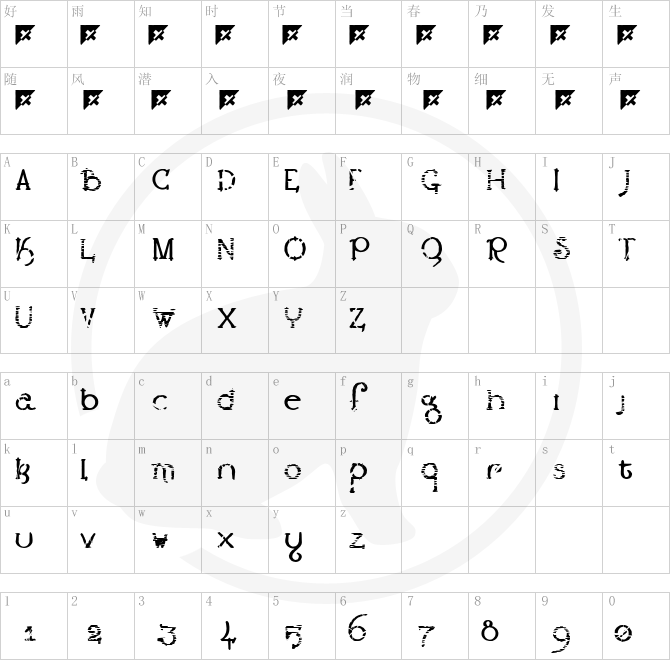
- Font Name:!Lestatic CSS
!LestaticCSS.ttf is a very beautiful artistic font, !LestaticCSS.ttf is widely used in the design and printing of various books and pictures,!LestaticCSS.ttf has a strong visual impact,!LestaticCSS.ttf is a commonly used font in newspapers, magazines and books, and is used in posters, e-commerce Poster design, store design, logo design, font design and other fields.!LestaticCSS.